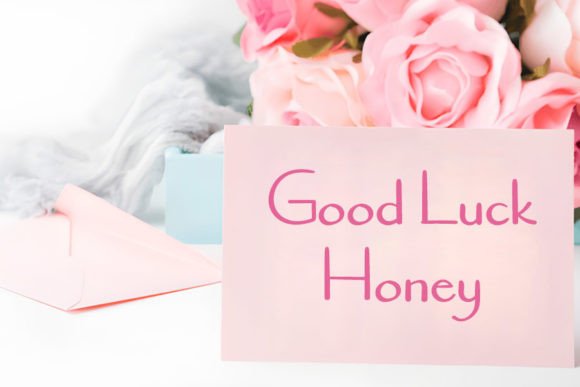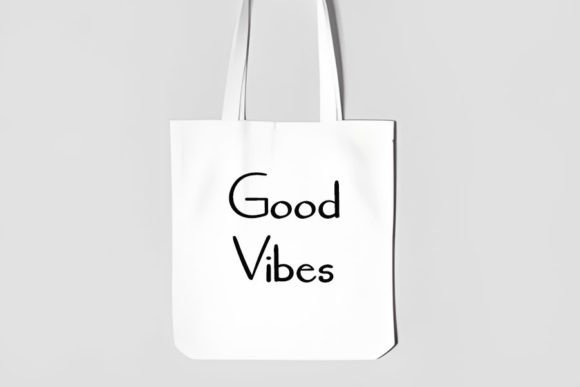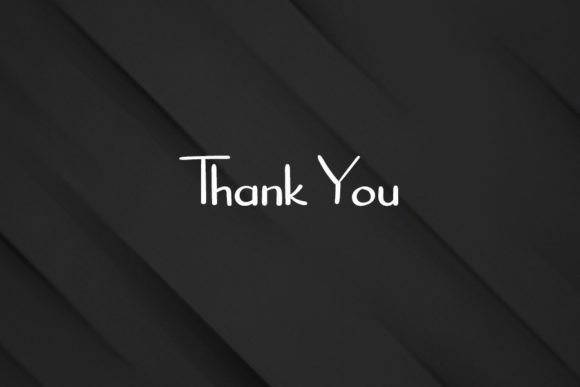
Donnuts Font: The Simple yet Powerful Handwritten Font for Your Creative Projects
Are you tired of using the same old fonts for your design projects? Look no further than Donnuts Font, a unique and simple handwritten font that can elevate your creative ideas to the next level. In this article, we’ll explore the features and benefits of Donnuts Font, and how it can be used to make your projects stand out.
What is Donnuts Font?
Donnuts Font is an incomparable and simple letter handwritten font that is perfect for a wide range of design projects. Its clean and elegant lines make it easy to read and versatile enough to be used in various contexts. Whether you’re working on a logo, branding, packaging, or any other design project, Donnuts Font is an excellent choice.
Key Features of Donnuts Font
- Handwritten style: Donnuts Font has a unique handwritten style that gives it a personal and authentic feel.
- Simple and clean lines: The font features simple and clean lines that make it easy to read and understand.
- Versatile: Donnuts Font can be used in a wide range of design projects, from logos and branding to packaging and more.
- Elegant and sophisticated: The font has an elegant and sophisticated look that can add a touch of class to your designs.
Benefits of Using Donnuts Font
So, why should you choose Donnuts Font for your design projects? Here are just a few benefits of using this amazing font:
- Stand out from the crowd: Donnuts Font is a unique and distinctive font that can help your designs stand out from the crowd.
- Easy to read: The font is easy to read, even at small sizes, making it perfect for body text and other applications.
- Customizable: Donnuts Font can be easily customized to fit your brand’s style and personality.
- Time-saving: With Donnuts Font, you can save time and effort in your design projects, as it’s easy to use and works well in a variety of contexts.
How to Use Donnuts Font in Your Design Projects
Using Donnuts Font in your design projects is easy. Here are a few tips to get you started:
- Pair it with other fonts: Donnuts Font pairs well with other fonts, so feel free to experiment with different combinations.
- Use it for headings and body text: The font works well for both headings and body text, making it a versatile choice for your design projects.
- Customize it to fit your brand: Don’t be afraid to customize Donnuts Font to fit your brand’s style and personality.
In conclusion, Donnuts Font is an amazing handwritten font that can add a touch of elegance and sophistication to your design projects. Its simple and clean lines make it easy to read, and its versatility makes it perfect for a wide range of applications. Whether you’re a designer, crafter, or DIY enthusiast, Donnuts Font is a great choice for your creative projects. So why wait? Download Donnuts Font today and see how it can make your designs stand out!
With Donnuts Font, you can:
- Create stunning logos and branding materials
- Design beautiful packaging and product labels
- Make your website or blog stand out with a unique font
- Add a personal touch to your craft projects
So, add Donnuts Font to your creative toolkit today and discover how it can help you create amazing designs that stand out from the crowd!